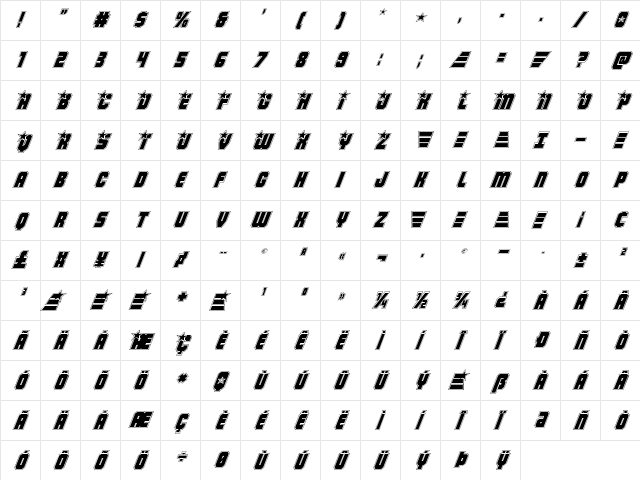
Army Rangers Academy Italic Italic
Design Context for Army Rangers Academy Italic Typeface
Army Rangers Academy Italic has the no-nonsense character of military stencilling and tactical signage, projecting authority and directness. The slanted form adds forward momentum and visual energy.
Designed for tactical branding, military-inspired apparel, action game UI, and utility-focused signage.
Pro Tip: Use Army Rangers Academy Italic at medium-to-large sizes where its utilitarian structure can be appreciated — the character detail gets lost at small sizes.